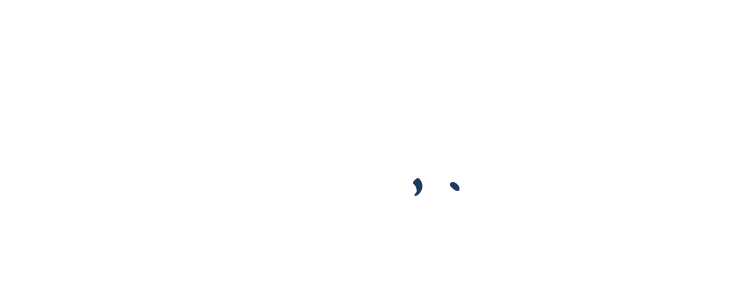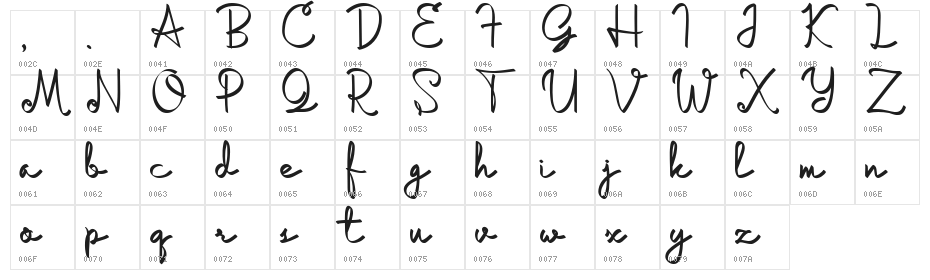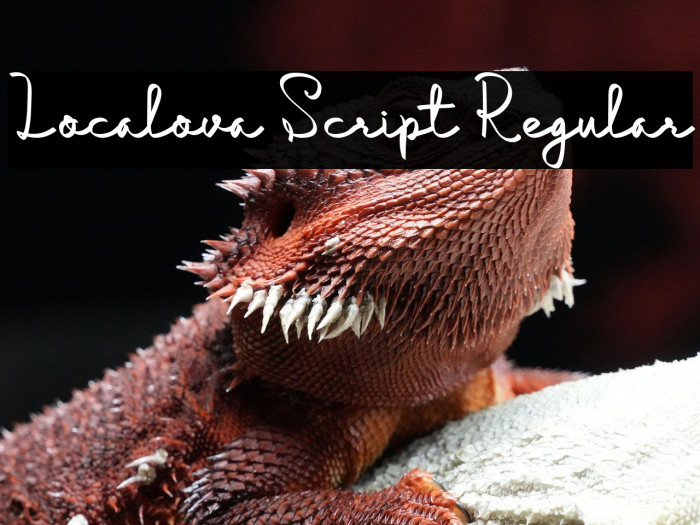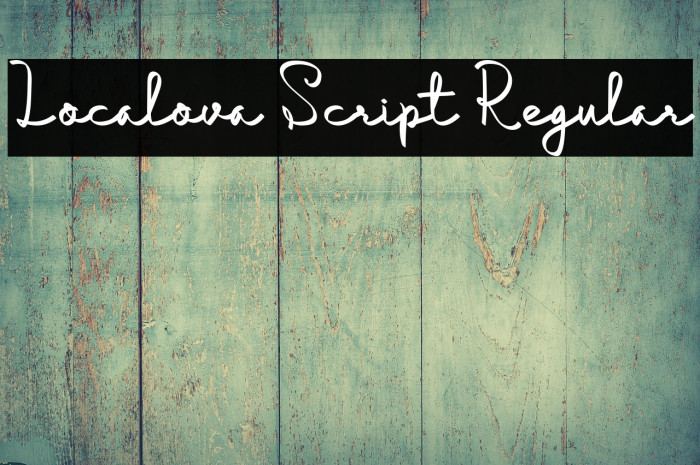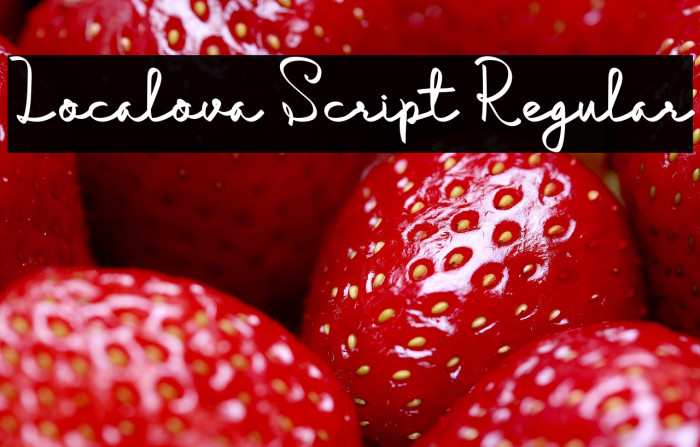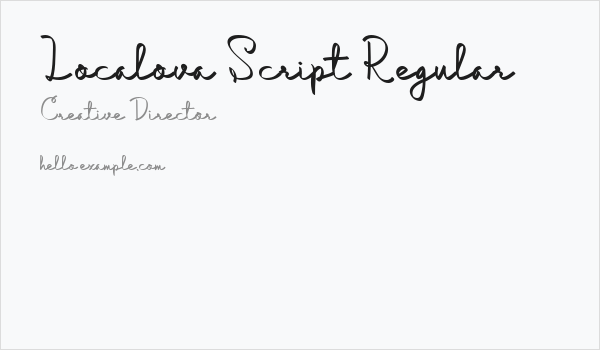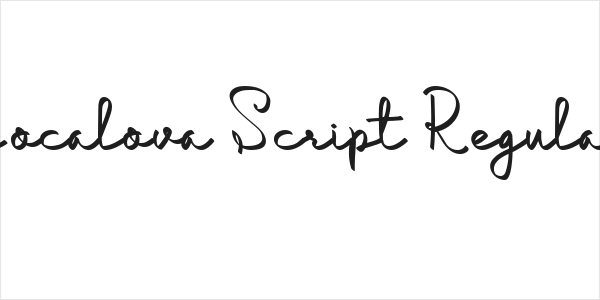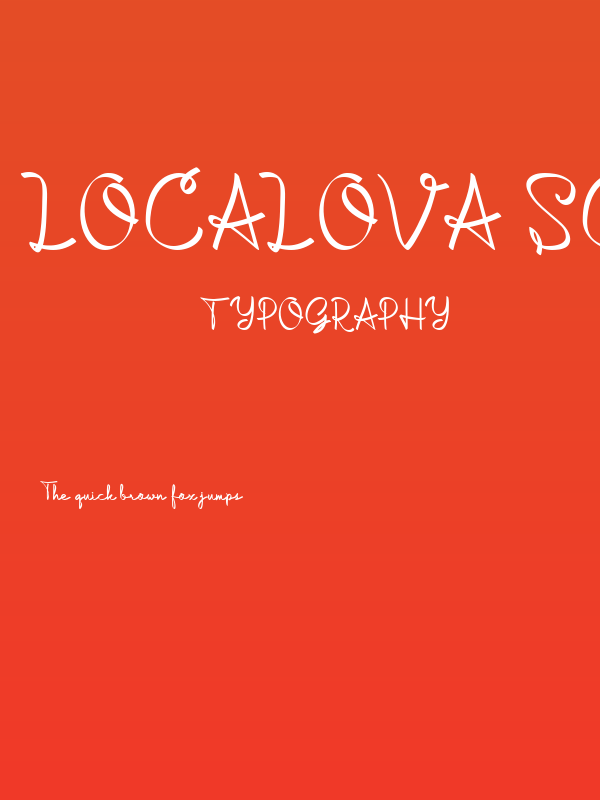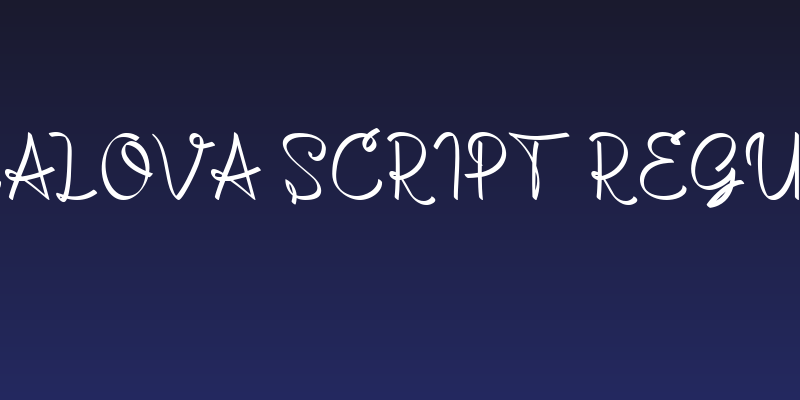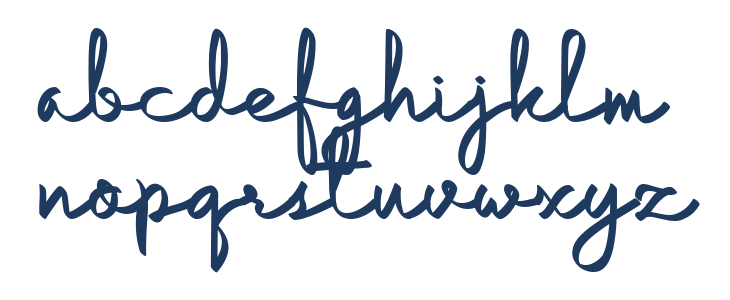
Localova Script Regular Font
Localova Script Regular Description
This font features a playful and elegant script style, characterized by its flowing, cursive letterforms. The uppercase letters are distinct with a whimsical flair, incorporating loops and swirls that add a touch of sophistication. The lowercase letters maintain a consistent flow, enhancing readability while retaining an artistic touch. The font's overall appearance is both modern and classic, making it versatile for various design needs. It includes a full set of uppercase and lowercase letters, numerals, and a selection of special characters, ensuring comprehensive usability.
| Overall Style | Elegant, Playful |
| Use Case | Logos, Invitations, Branding |
| Proposed Projects | Ideal for wedding invitations, greeting cards, branding projects, and elegant logo designs. |